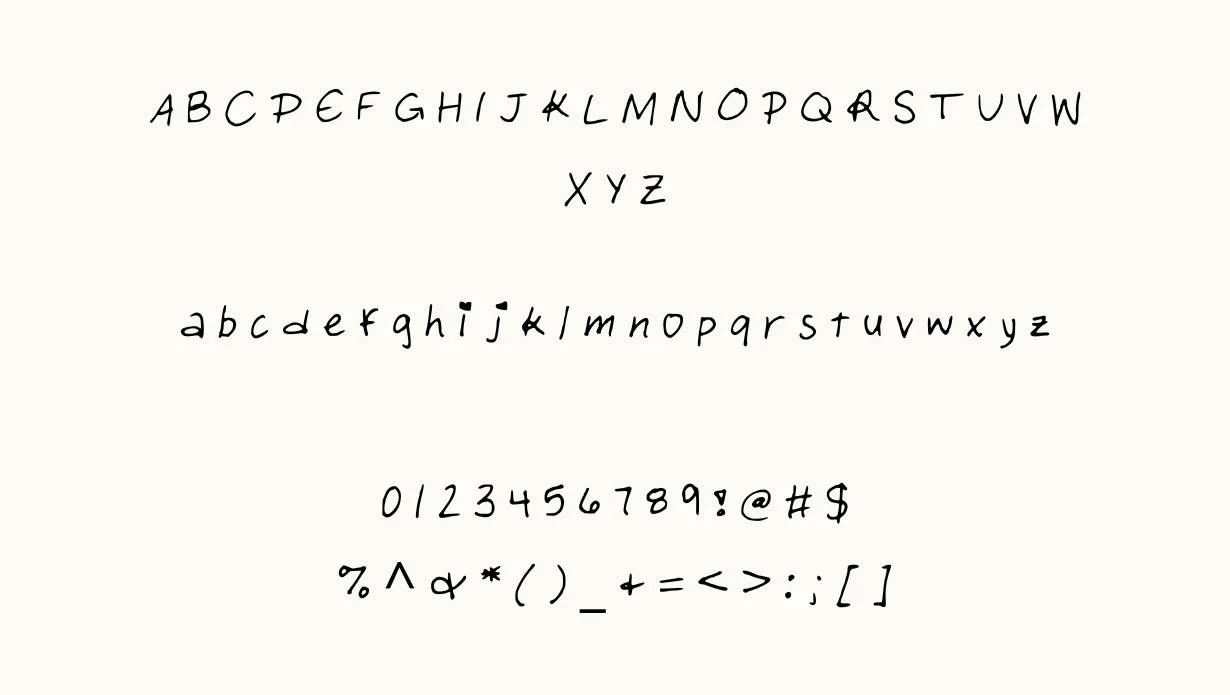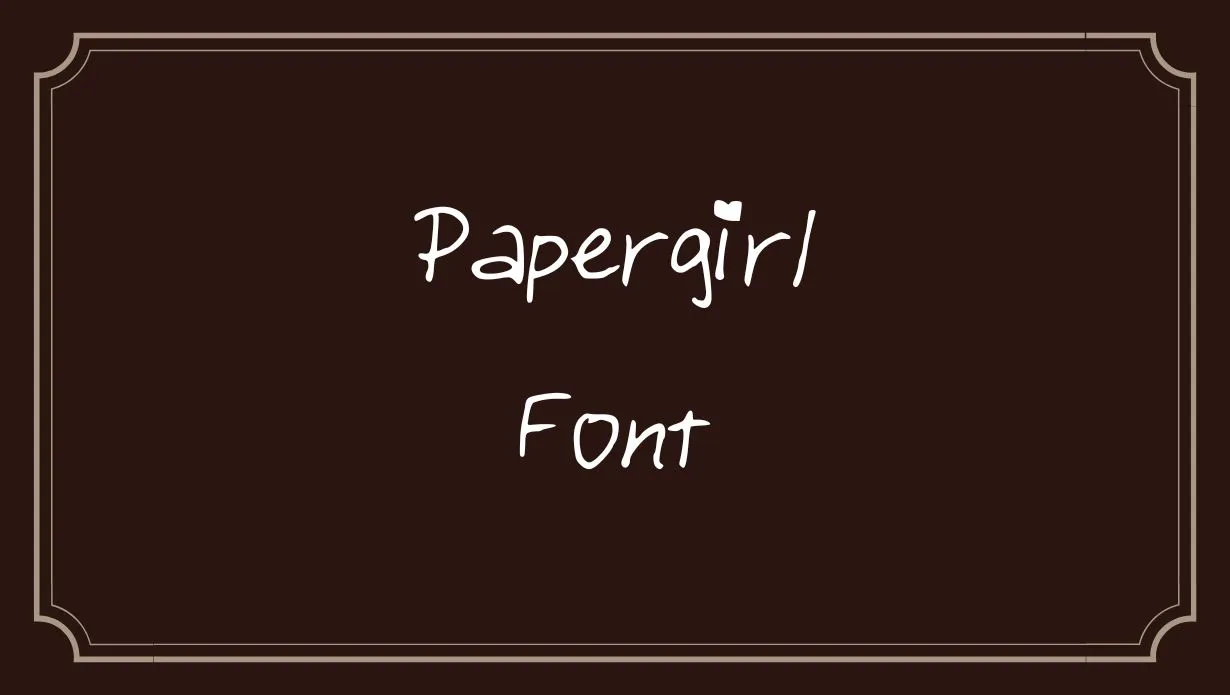
Hailey Elizabeth created this nice and elegant script text design that can be used to create unique content. The Papergirl Font features consist of 1024 units per em and more than 128 fantastic characters.
This font has a gentle, modern appearance. This typeface is ideal for any project that needs high-quality content. This font’s characters can be used to create a variety of projects.
Usage of Papergirl Font
By using the font, you can make various kinds of professional graphic designs, magazine-style graphics, and commercial websites.
You can design various layouts with this style such as the company’s logo, billboards, and many more. Additionally, this design is appropriate for making websites, labeling products, flyer designs, and banner designs.
The typeface is used for various forms of advertising by numerous media sources and publications. This typeface is appropriate for fabric designing firms. This family is used for a variety of designs worldwide because it supports all languages.
Name | Papergirl Font |
Style | Script |
Designer | Hailey Elizabeth |
Where can I use Papergirl Font?
This script typeface is suitable for logos, posters, graphic designs, magazine-style graphics, and websites as well.